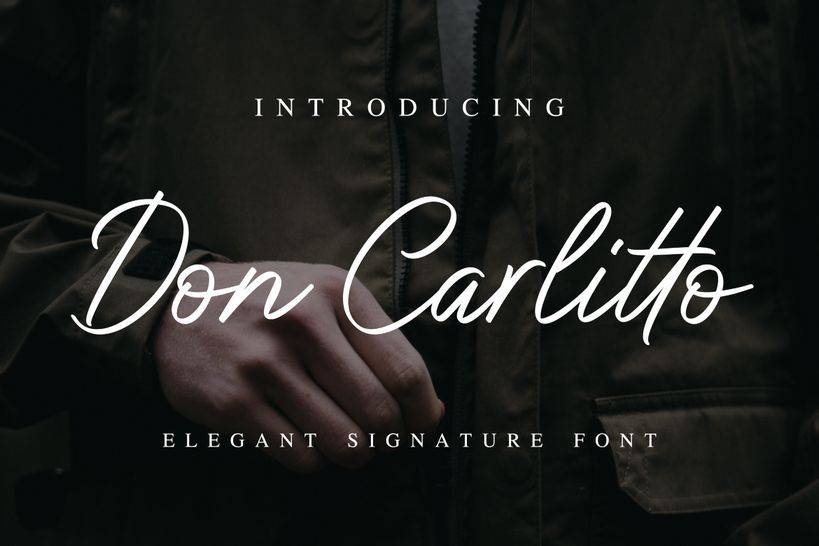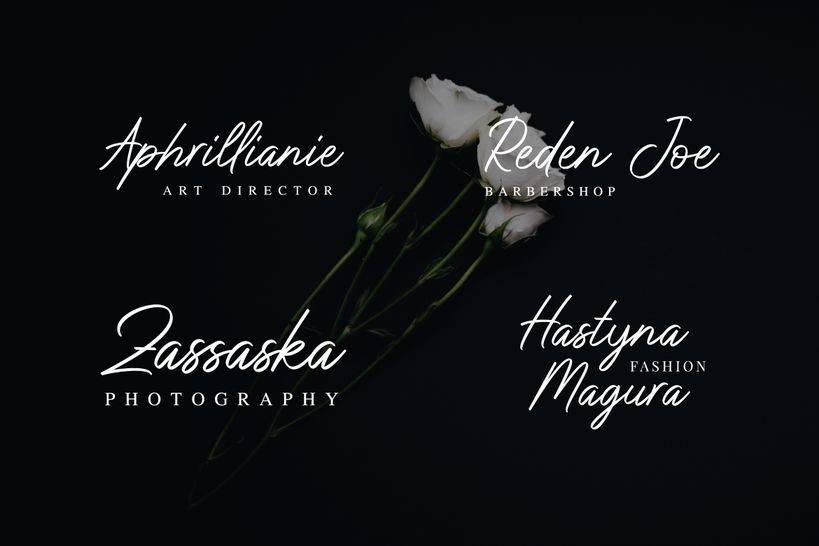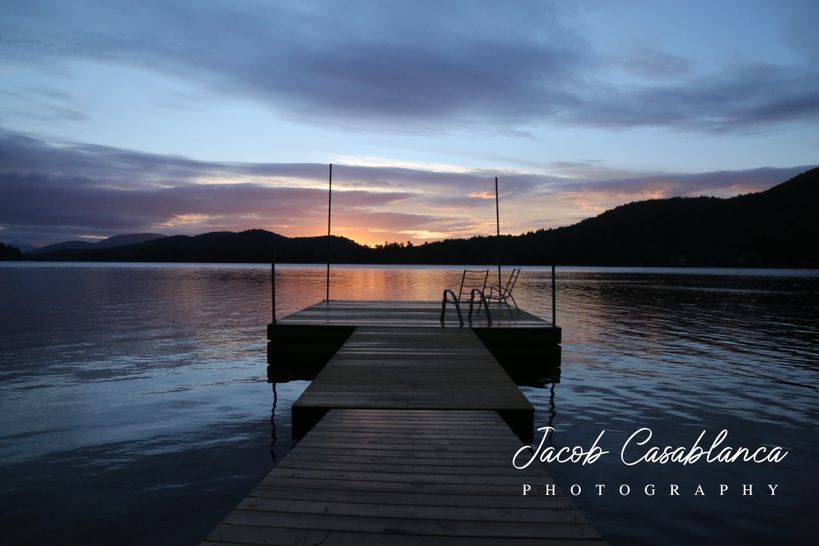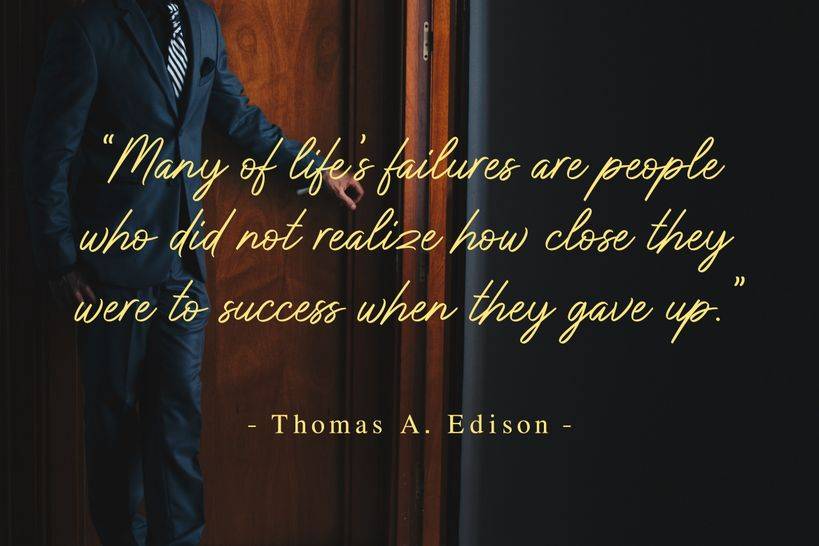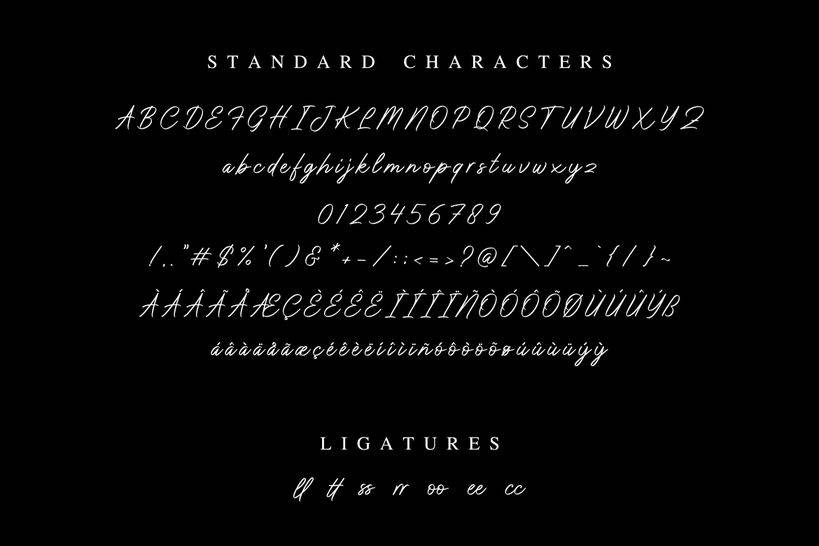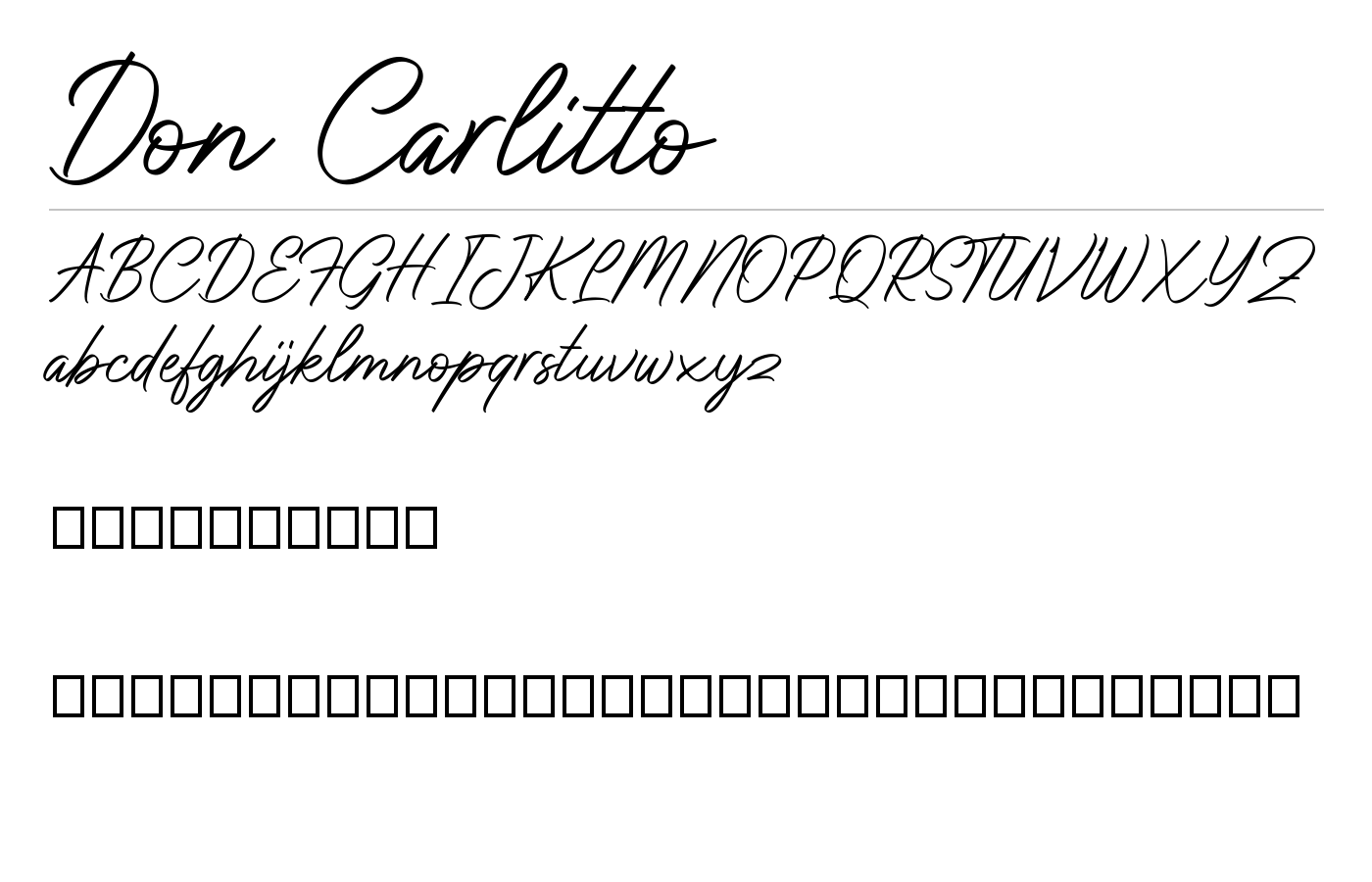
Don Carlitto is an elegant script font that combines graceful, flowing strokes with a refined, handwritten feel. Its slender, slightly italicized letterforms create a sophisticated and approachable style, perfect for branding, invitations, and any design seeking a touch of classic charm and personal warmth. This font works beautifully in both logos and headlines where a stylish yet readable script is desired.
Don Carlitto Font
About Don Carlitto Font